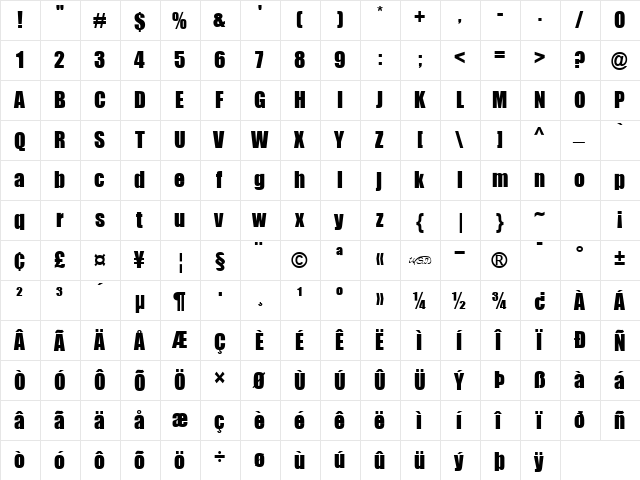
Billboard Regular
Design Context for Billboard Typeface
Billboard offers clean, dependable letterforms without strong stylistic allegiance, making it a practical choice for designers who need flexibility.
Pro Tip: Use Billboard in both headline and body roles to test its range before committing to a single application.